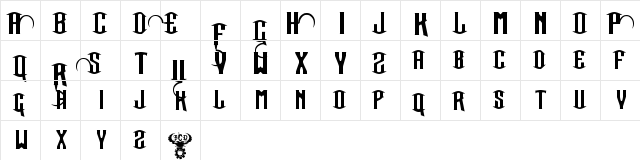
Our Sacred Rights Bold
| Designer | BoltCutterDesign-Industrial Strength |
Design Context for Our Sacred Rights Typeface
Our Sacred Rights is a composed and adaptable typeface that performs quietly and consistently across a wide range of design contexts. Its bold stroke weight gives it real presence on the page.